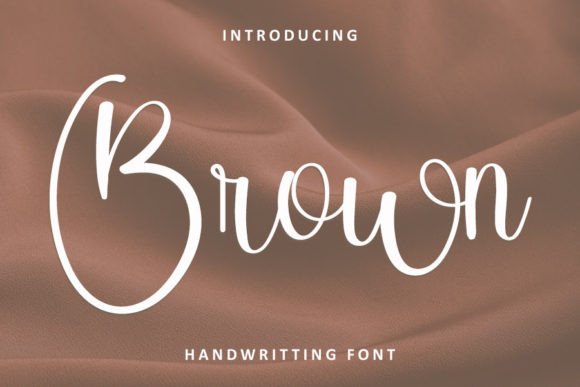
The Elegance of Brown Font: A Designer’s Delight
An Honest Review of Brown Font
Brown Font has been a game-changer for my designs, and here’s what I love about it:
- ✨ Elegant and classy: Brown Font adds a touch of sophistication to any design project.
- ✅ Highly versatile: This font can be used for various products, from logos and branding to packaging and advertising.
- 💫 Contemporary feel: The font’s modern atmosphere makes it perfect for designs that require a fresh and trendy look.
- 📝 Great for headlines and titles: Brown Font’s calligraphy-inspired style makes it ideal for grabbing attention and creating visual interest.
While Brown Font is an excellent choice, it’s not without its quirks:
- 🤔 Limited use for body text: Due to its elegant and cursive nature, Brown Font might not be the best choice for lengthy paragraphs.
- ⚠️ May not work well with small font sizes: The font’s intricate details and swashes might get lost when scaled down.
- Experiment with OpenType features, such as swashes and stylistic alternates, to add more flair to your design.
The Story Behind Brown Font
Brown Font was inspired by the timeless elegance of classic calligraphy. Its creator, a talented type designer, aimed to craft a font that would bring a touch of sophistication to modern designs. By combining traditional techniques with contemporary flair, Brown Font was born – a font that effortlessly blends elegance and class.
| Font Name | Brown Font |
| What type of designs is Brown Font best suited for? | Brown Font is ideal for designs that require elegance and sophistication, such as luxury branding, high-end advertising, and creative packaging. |
| Can I use Brown Font for body text? | While possible, Brown Font is better suited for headlines and titles due to its elegant and cursive nature. For body text, consider a more readable font. |